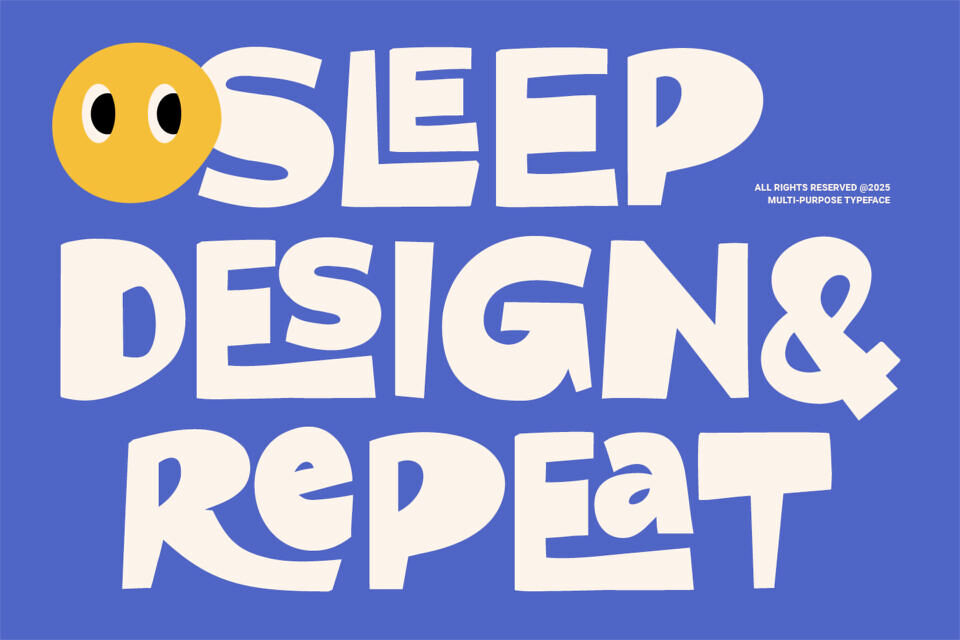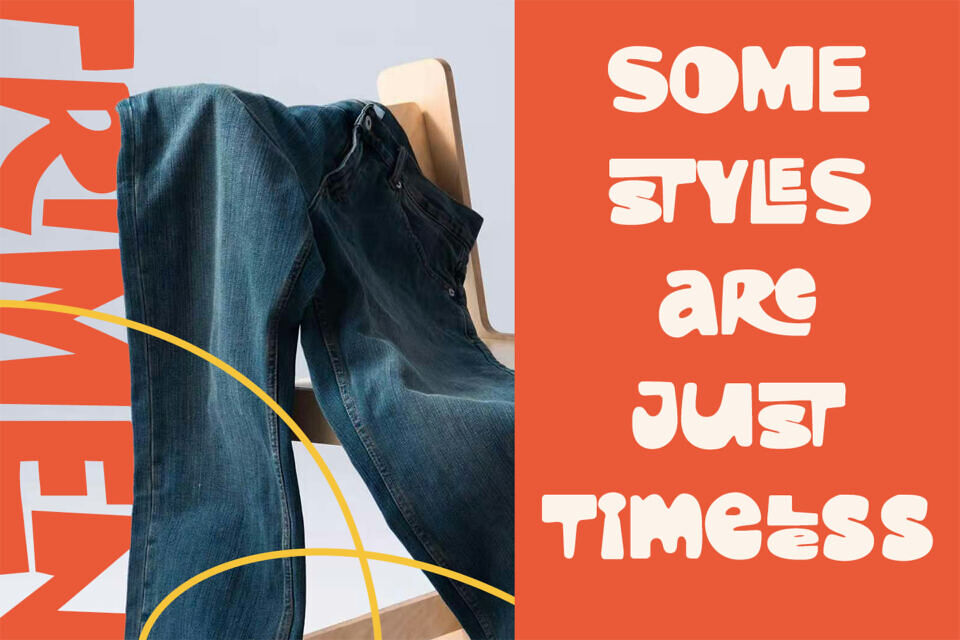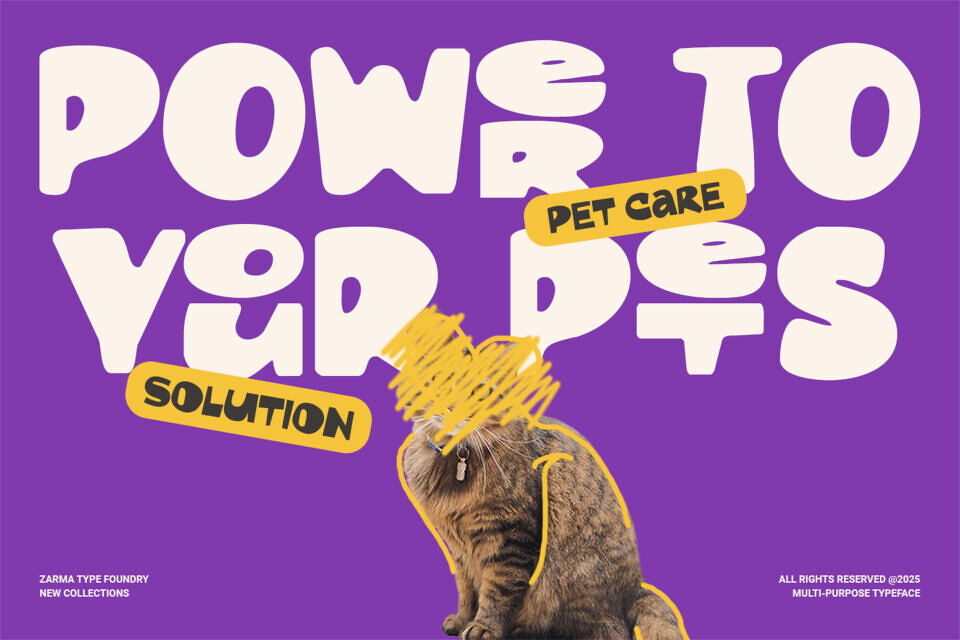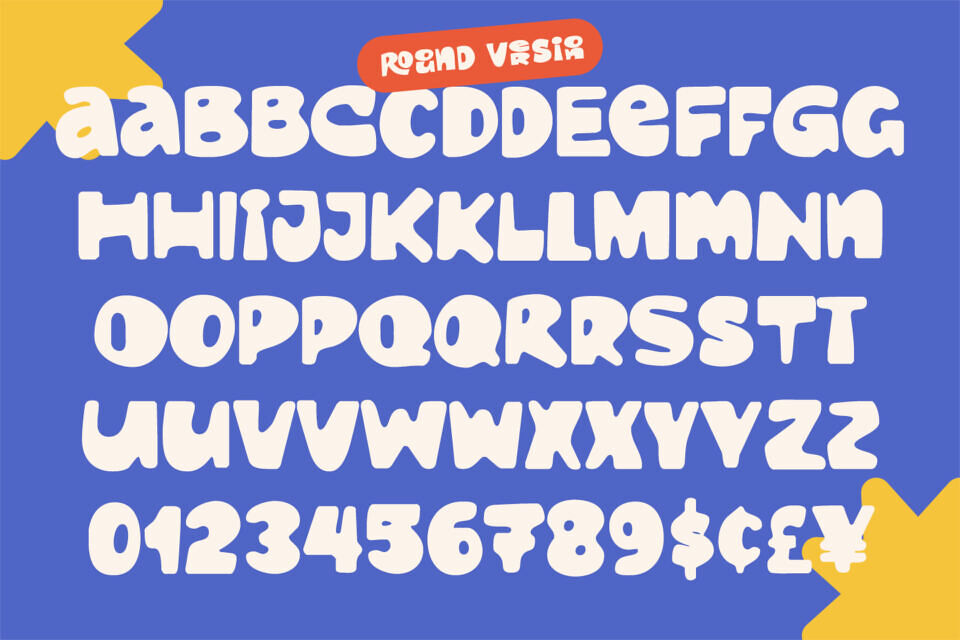
Trimen Drawing Font
Trimen Drawing is a modern bold font full of personality, perfect for designs that need to be fun, raw, and eye-catching. It features thick handdrawn strokes with playful curves that create a unique, expressive style. Moreover, its organic imperfections bring out a grunge flair that works well for youthful brands. Whether you’re designing for food packaging, a poster, or a trendy label, this font adds punch and power to every layout.
From pizza boxes to pet care labels, Trimen Drawing thrives in bold environments. Its distorted shapes and energetic presence help brands stand out in creative ways. The font includes multilingual support and alternate glyphs, so that designers can work freely across different languages and applications.